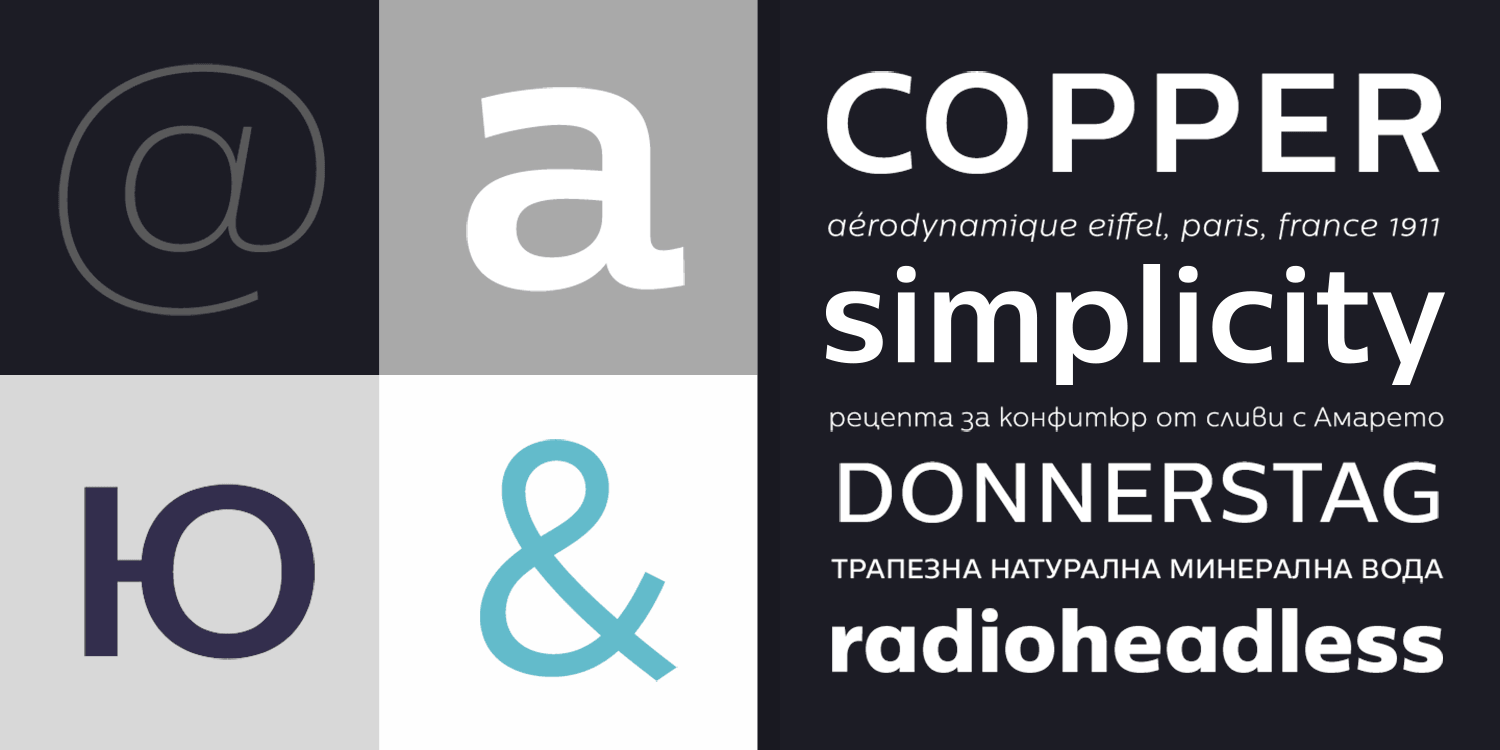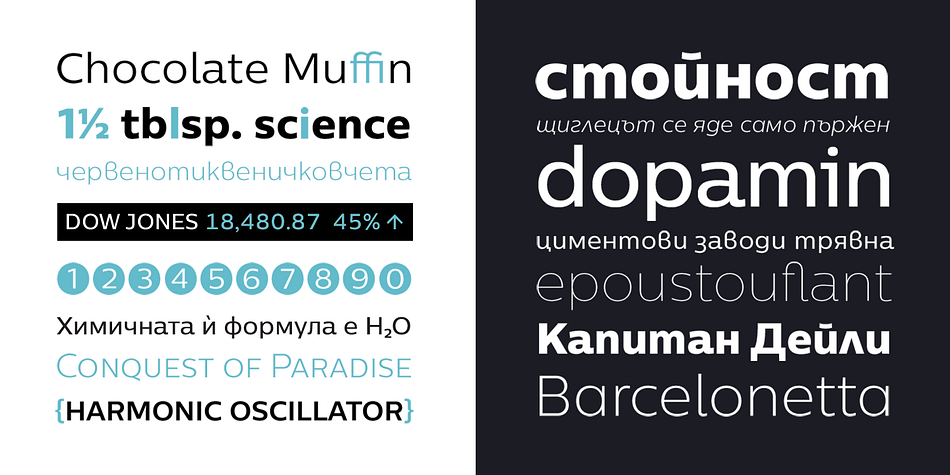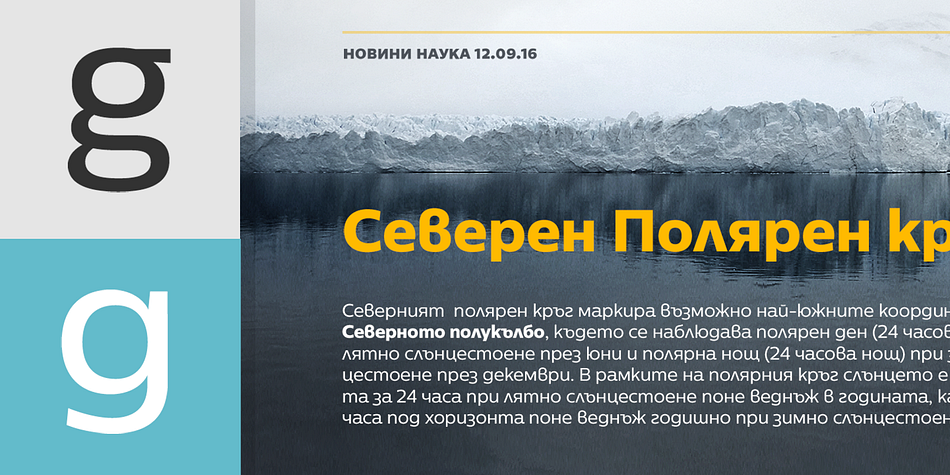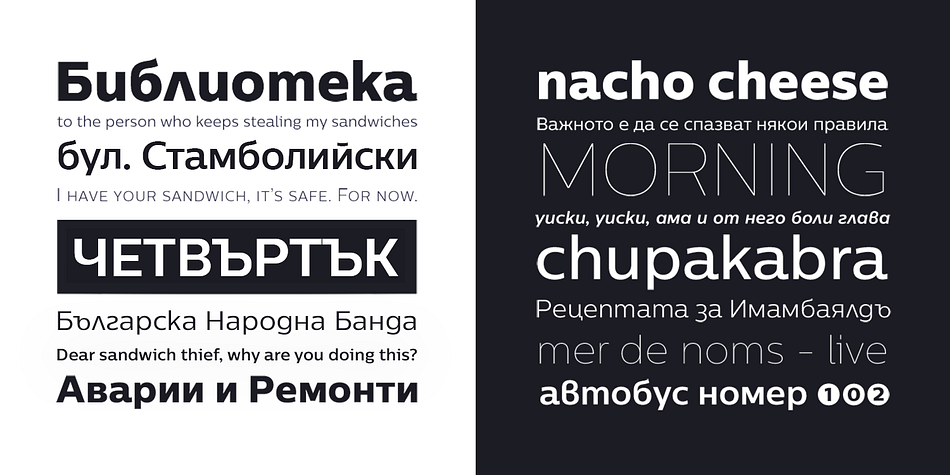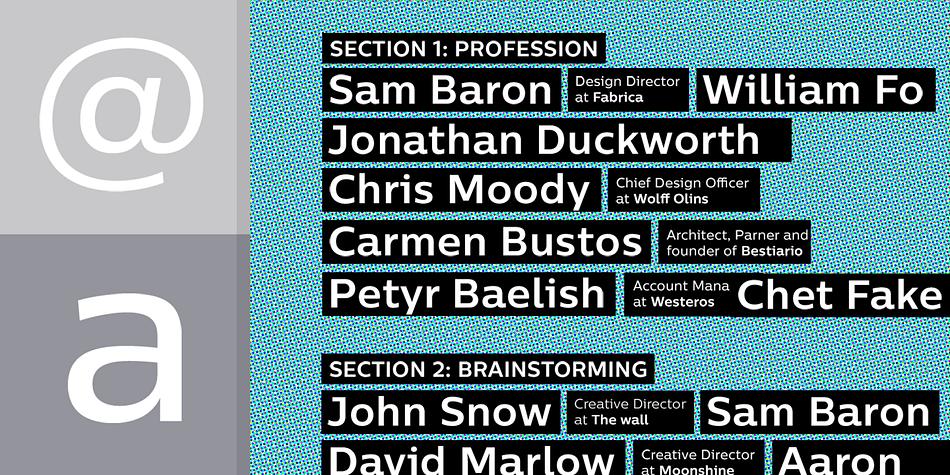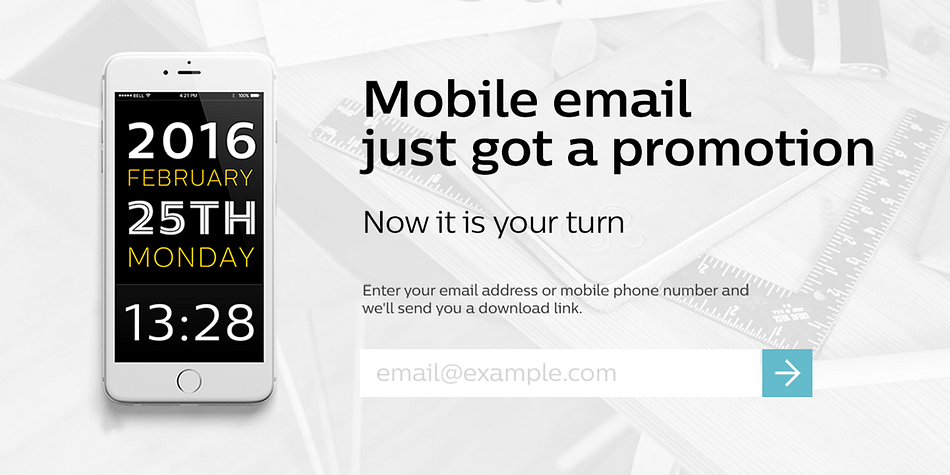
Centrale Sans Pro is a sans serif font family. This typeface has eighteen styles and was published by Typedepot.
We have finally finished our work on Centrale Sans. A lot of mistakes have been made, and we hope a lot of them have been fixed. But finally we are ready to end this five-year journey and present you the typeface as we have always intended it to be. A humanist design typeface incorporating elements from the more rationally constructed grotesque typefaces. Its characteristics are relatively large x-height and open apertures.
The overall effect suggests approachability without the sentimentality carried by some of the more authentic humanist designs – contemporary and precise. Centrale Sans Pro comes with both Cyrillic and Latin support. Nine weights plus their matching italics to create the sturdy workhorse suitable for all your design needs.
Centrale Sans Pro comes with a lot of OpenType features like small caps, tabular figures, fractions, a lot of stylistic alternatives plus many more. You can find extended information about the included OpenType features and how to use them in the PDF provided with the font files.
There are four display weights which were exclusively made for headline use. Selecting a well working display type might be challenging so Centrale Sans Inline will come in handy when looking for a good headline companion for Centrale Sans.